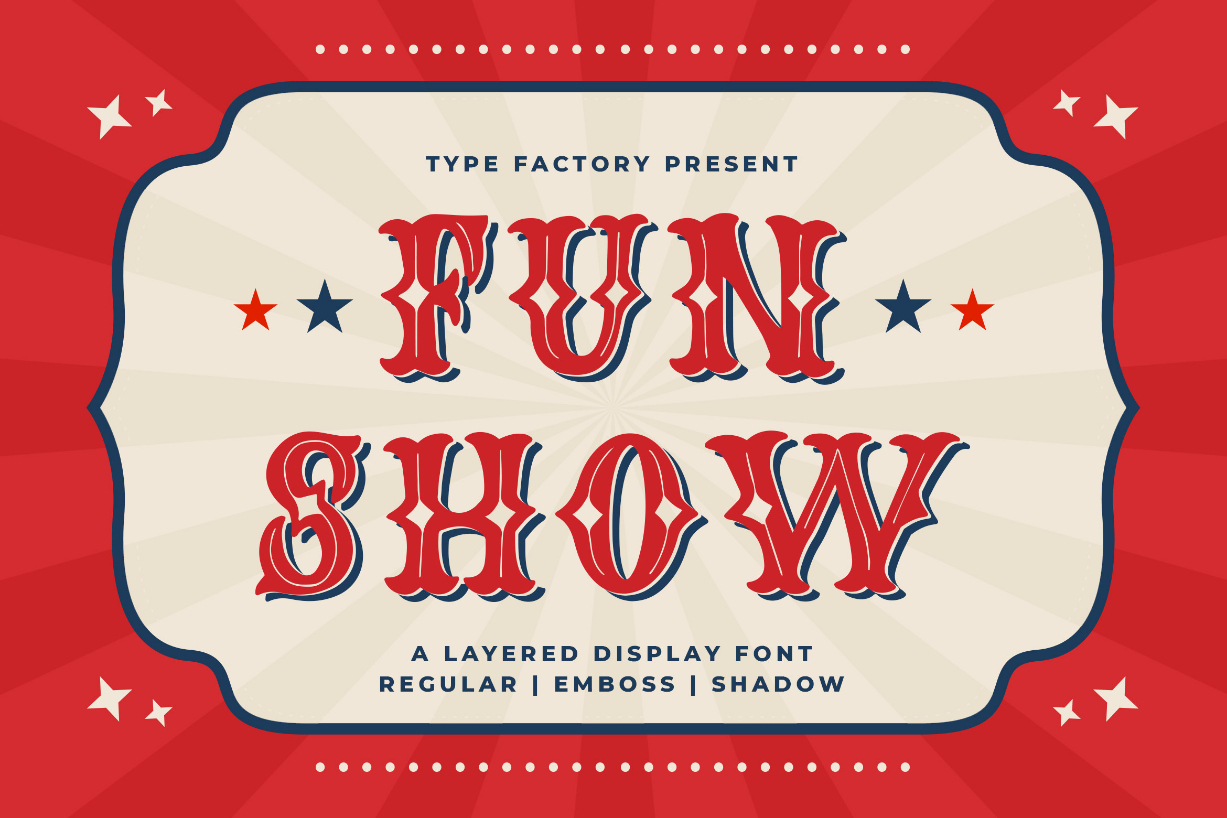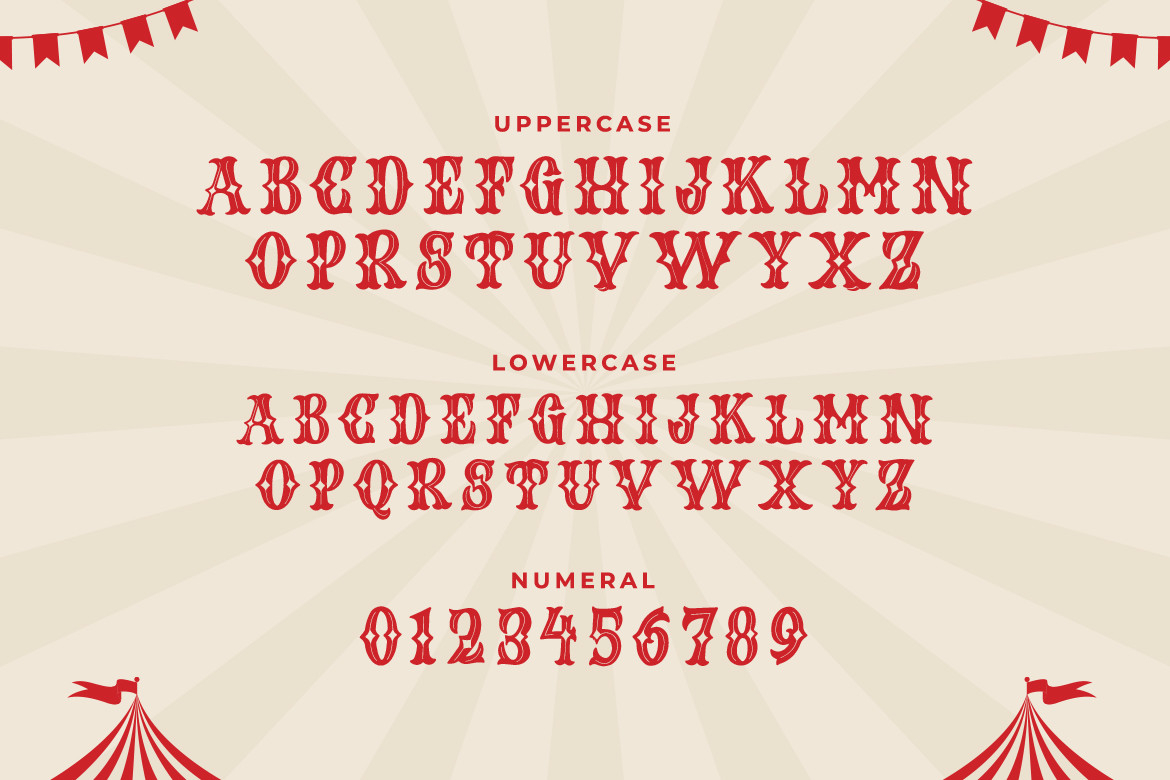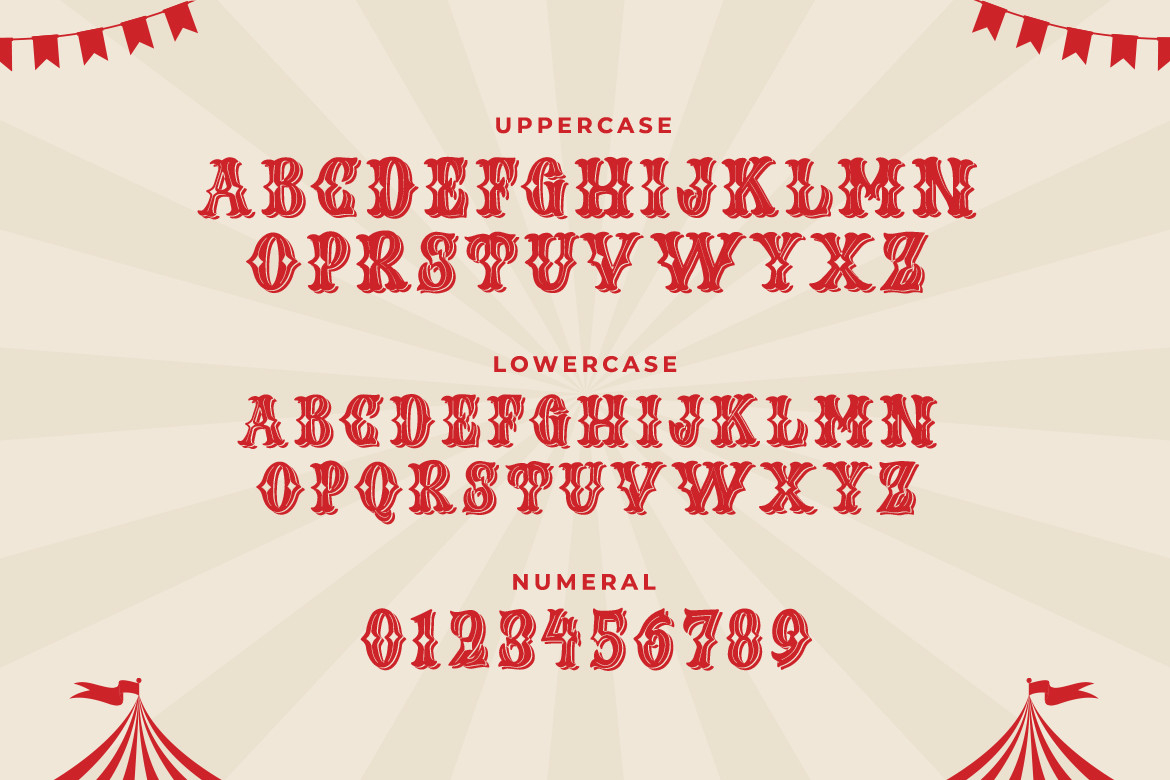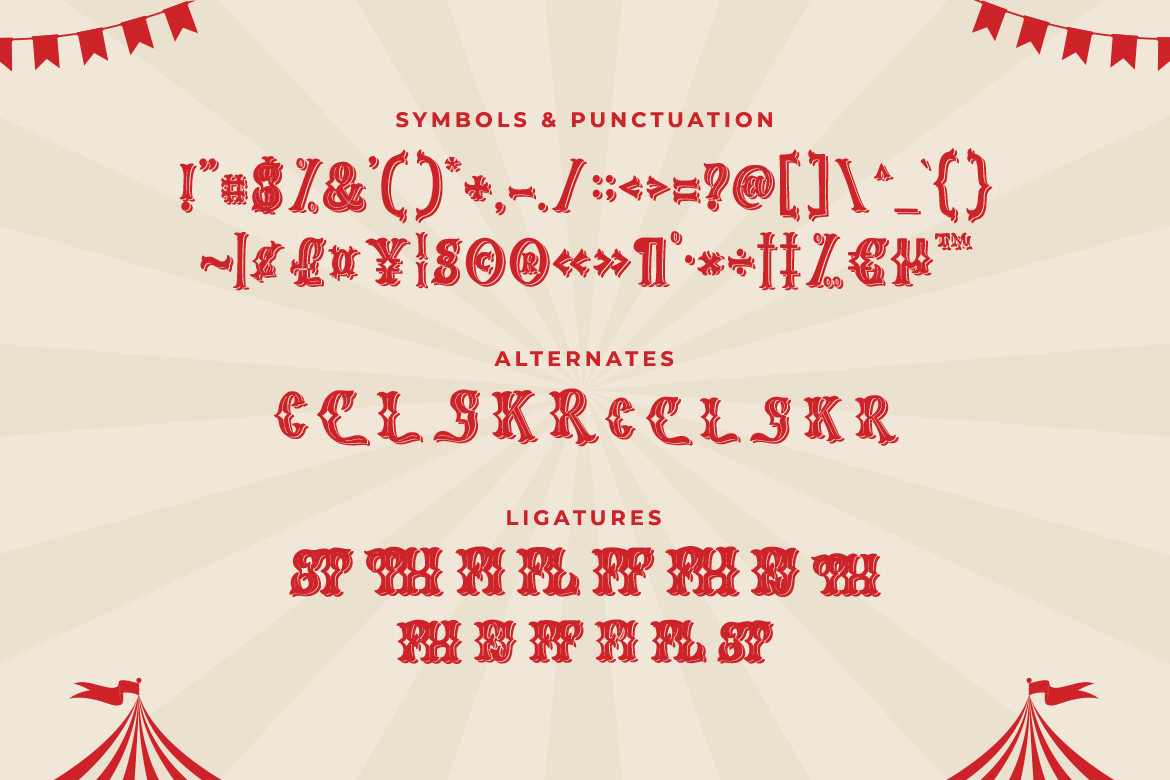
About Fun Show Font
Fun Show is an amazing layered blackletter font with playful feels.
It has 4 styles, used with layers method, so it can generate an interesting style and a lovely touch. This font is PUA encoded which means you can access all of the glyphs and swashes with ease!